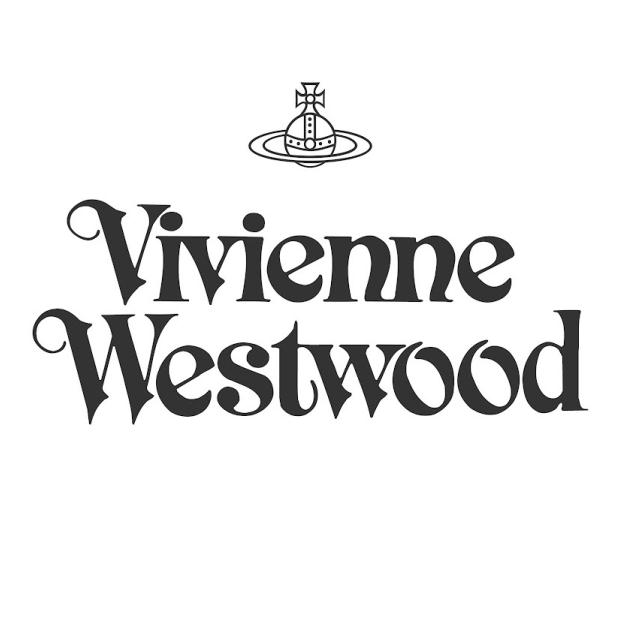
Vivienne Westwood Font
ApparelVivienne Westwood is a British fashion designer known for her avant-garde and punk-inspired designs. The brand was founded in 1971 and has since become a household name in the fashion industry. Vivienne Westwood's logo features an Orb, a globe with a cross on top, which symbolizes monarchical authority and justice and was also used at the Coronation of Queen Elizabeth II. Here it is rumored to be a sardonic reference to the fact that Dame Vivienne Westwood considers herself the Queen of Fashion.
The wordmark beneath the logo is an Art Nouveau display typeface Raphael published by Monotype. The font is a commercial one and you can view more details about it here.